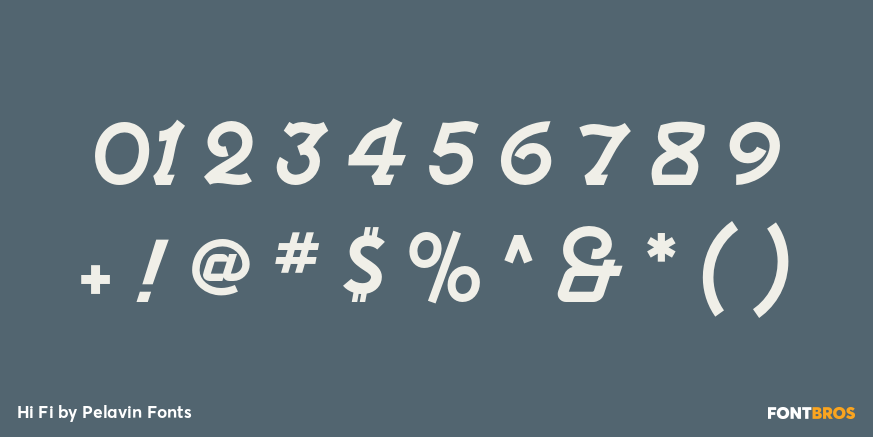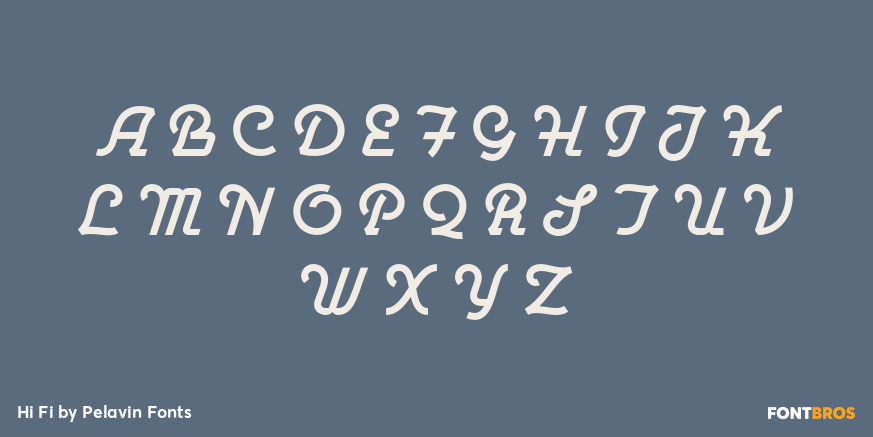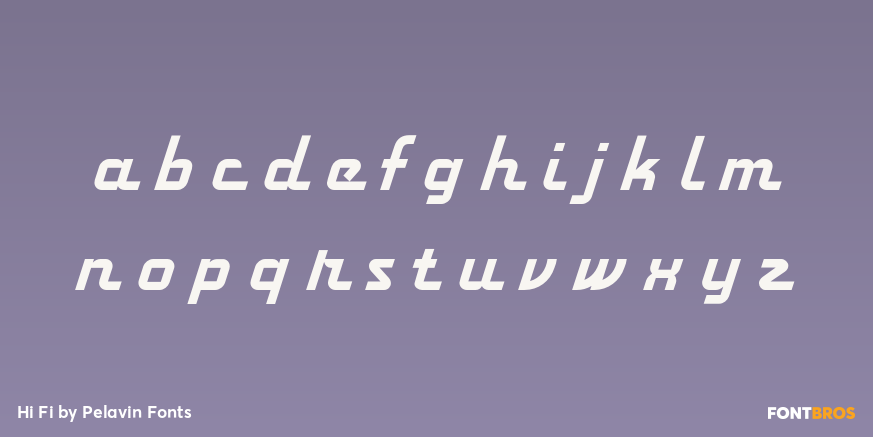
Hi Fi
Font Family by Pelavin Fonts
HiFi is a semi-connected geometric script with ornate capitals whose genesis lies in drive-in movie theaters, vintage auto emblems and radio dials. It embraces the stylistic tenets of retro futurism and proposes that the evolution of design styles, rather than being linear, is a circular process, continually revisiting and reshaping itself.
It was designed originally for a series of CDs featuring compilations of Big Band music. It is intended to evoke the 40s & 50s and pre-transistor electronics when you turned your radio on and waited patiently for the tubes to warm up.